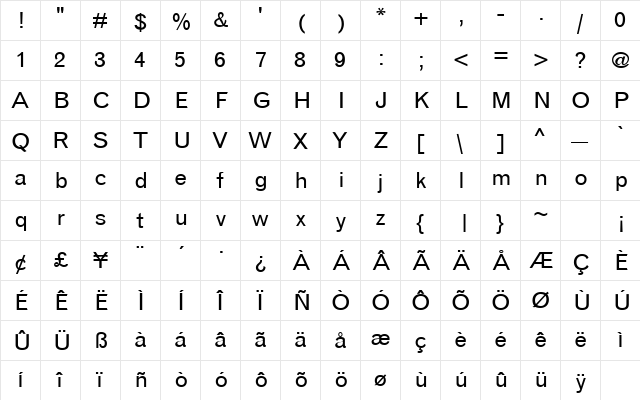
Granbrook Regular
Design Context for Granbrook Typeface
Granbrook takes a measured approach to typography — its balanced proportions and neutral character make it a reliable workhorse for both digital and print work.